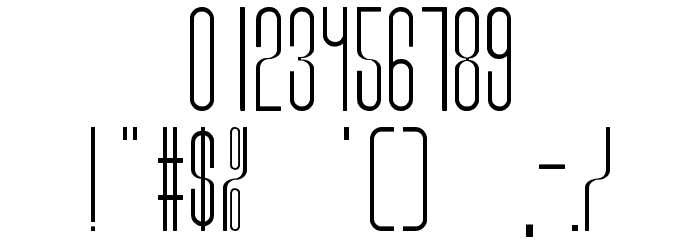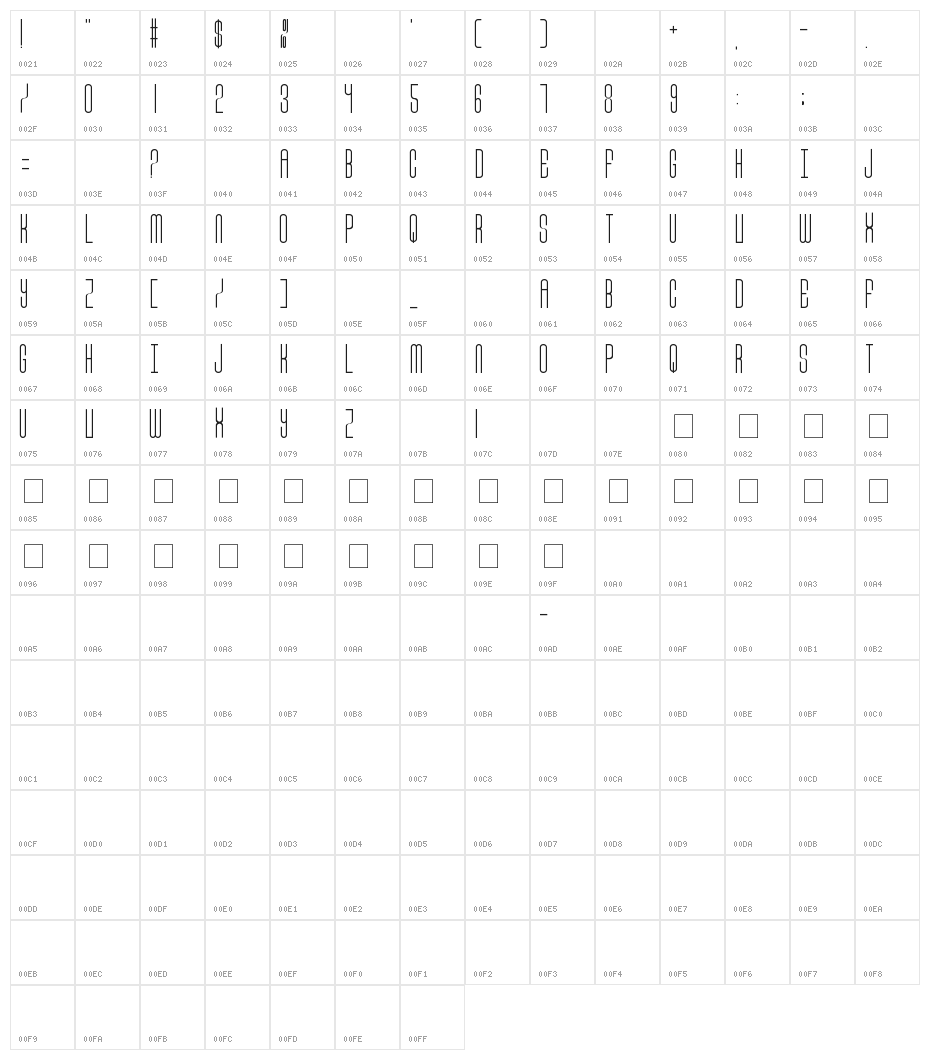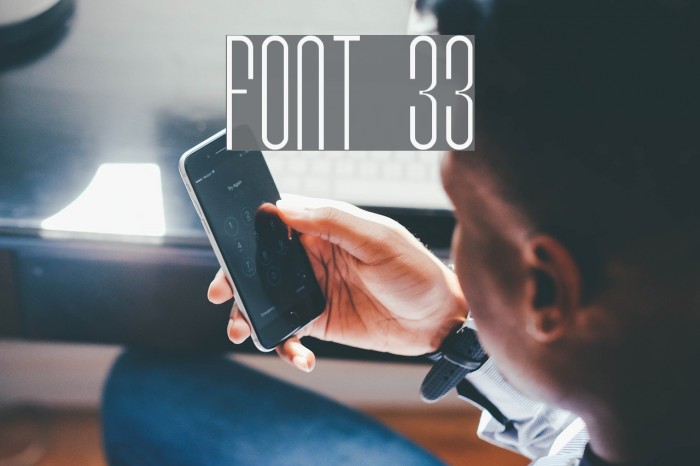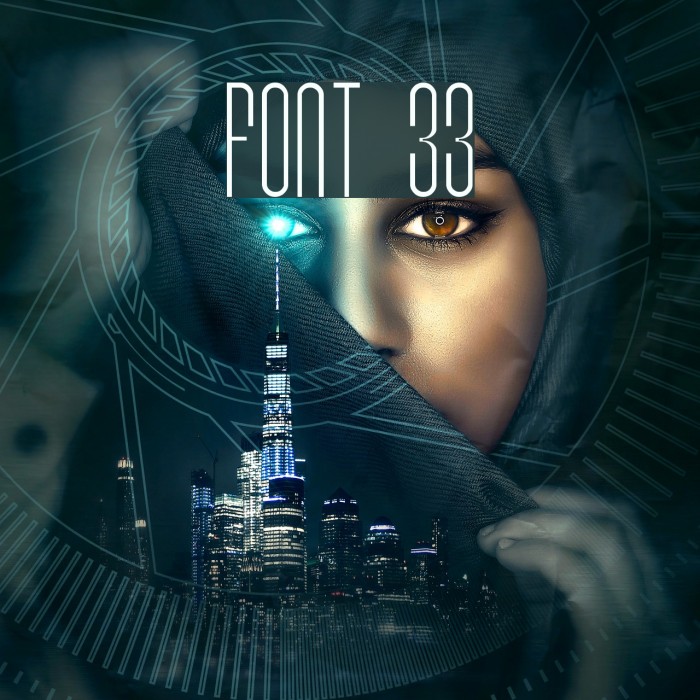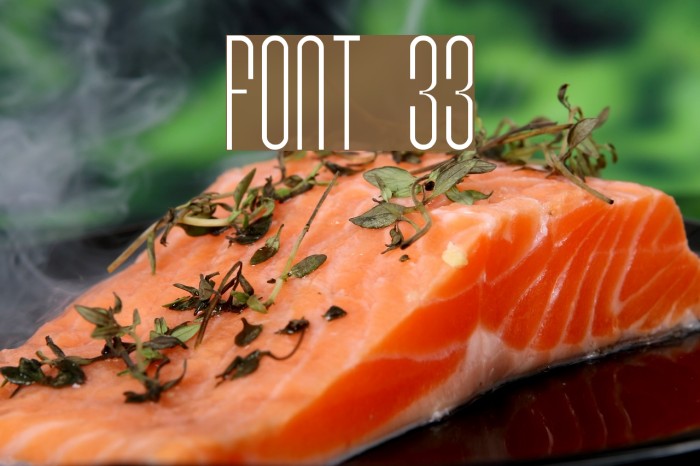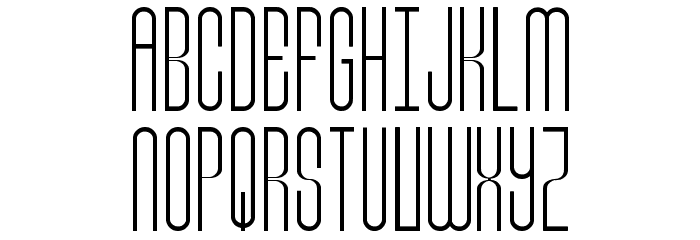
Font 33 Description
This font features a tall, narrow design with clean, straight lines and minimal curves, giving it a modern and sleek appearance. The uppercase and lowercase letters maintain a consistent height, contributing to a uniform look. The numerals and special characters follow the same design principles, ensuring cohesion across all elements. The font's geometric structure and elongated form make it stand out, while the thin strokes add a touch of elegance. Its unique style is both contemporary and versatile, suitable for various design applications.
| Proposed Projects | Ideal for modern branding, posters, magazine headers, and digital interfaces. |